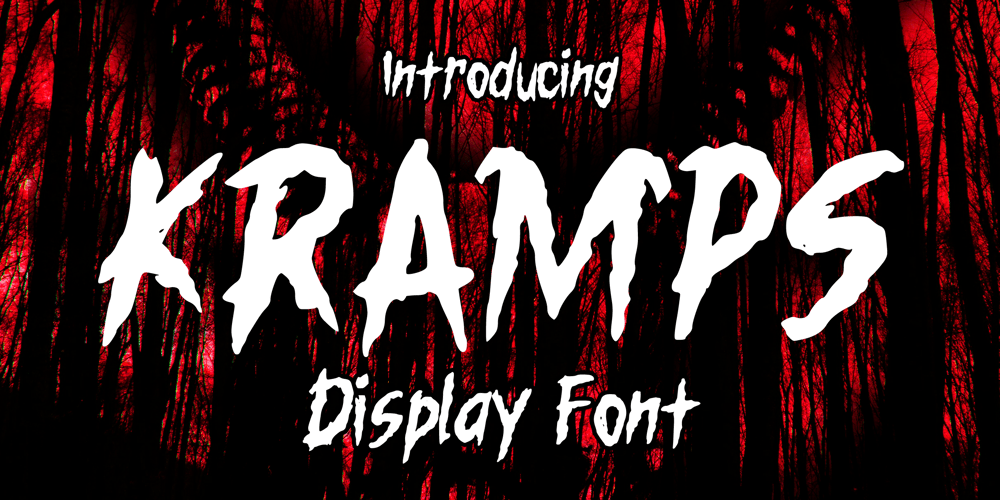
Kramps
Kramps font
Kramps Font Family was designed by Gabriel Valentinus and published by Mvmet. Kramps contains 1 styles and family package options. Kramps is a very cool horror display font. It will be perfect for your horror and Halloween-themed needs! You can use it for anything ranging from t-shirts and clothing, to your scary book designs, Halloween party needs, greeting cards, stickers, posters, banners, or anything that needs a horror touch. Try it to create fabulous designs and feel the horror and Halloween vibes with it!